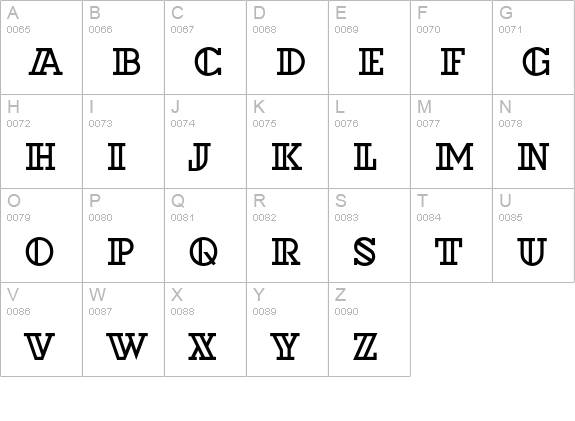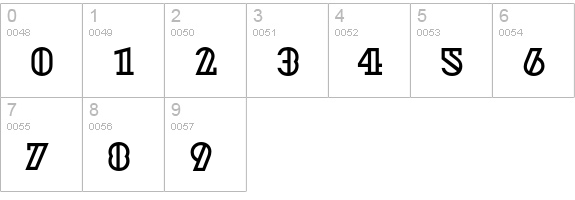
Dextor Outline D Font Details
Dextor Outline D font is a modern and sleek typeface that exudes elegance and sophistication. Its clean lines and sharp edges make it perfect for a wide range of design projects, from branding to editorial design. The outline style adds a unique touch to any text, ensuring that your message stands out in a visually appealing way. This versatile font is freely available to download at FontsMarket.com, making it accessible to designers and creatives looking to enhance their projects with a touch of class. Whether you're creating a logo, poster, or website, Dextor Outline D font is sure to elevate your design and leave a lasting impression on your audience. Don't miss out on the opportunity to add this stylish font to your collection and take your design work to the next level.